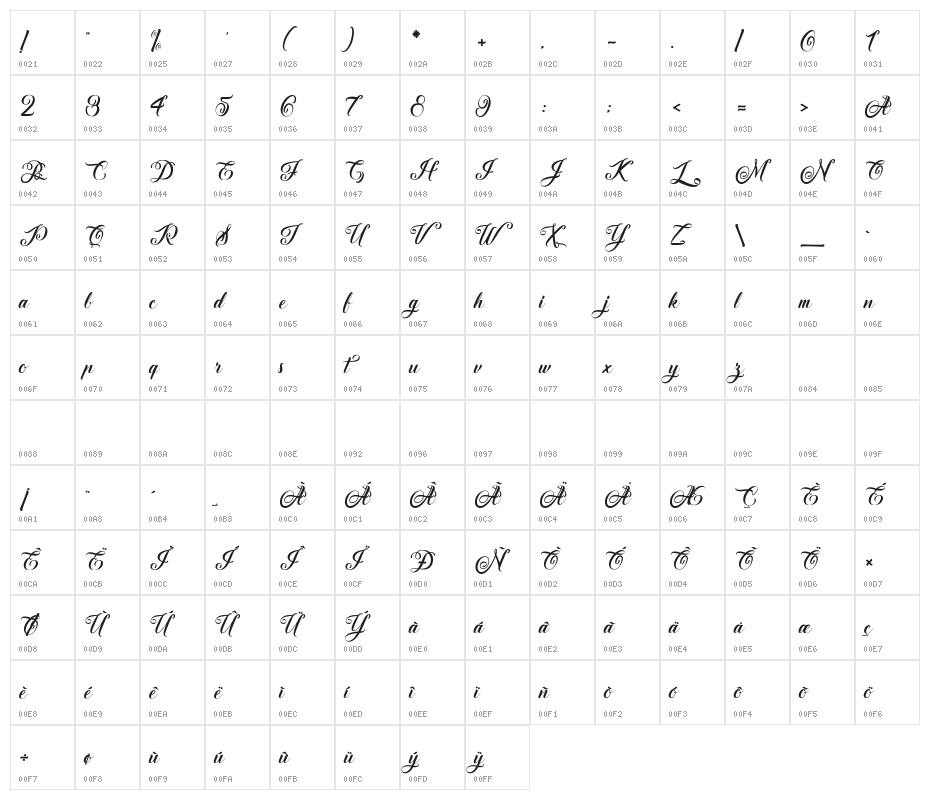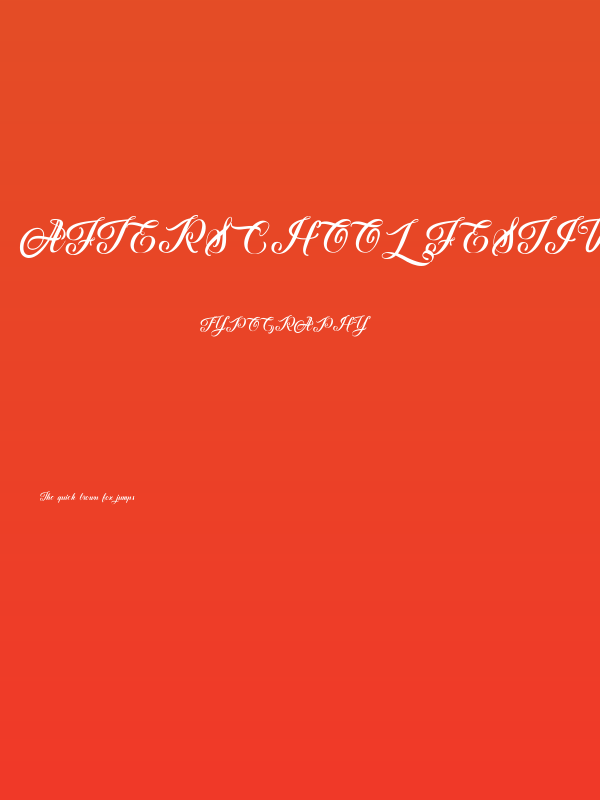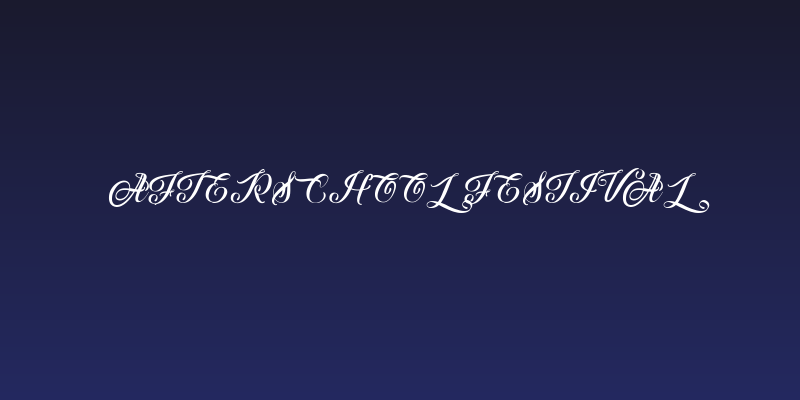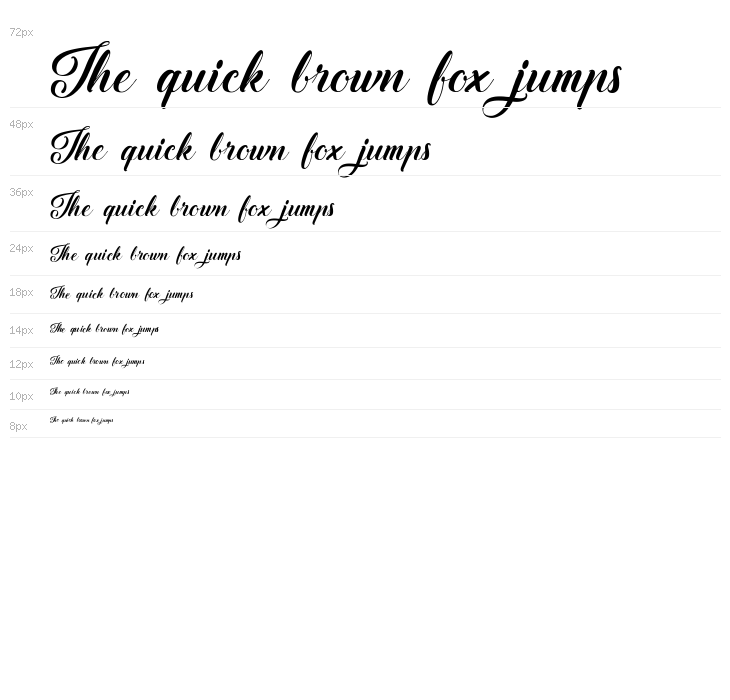
Afterschool Festival Font
Afterschool Festival Description
This font features an elegant and ornate script style, characterized by its flowing, cursive letterforms and intricate swashes. The uppercase letters are particularly decorative, with elaborate loops and flourishes that give a sense of sophistication and artistry. The lowercase letters maintain a consistent cursive style, complementing the uppercase with a slightly more restrained design. Numbers and special characters are also included, each with unique embellishments that maintain the overall aesthetic. The font's design is reminiscent of classic calligraphy, making it suitable for projects that require a touch of elegance and refinement.
| Proposed Projects | Ideal for wedding invitations, luxury branding, greeting cards, and elegant event signage. |